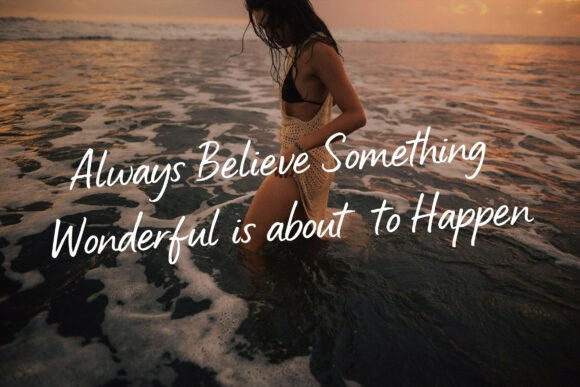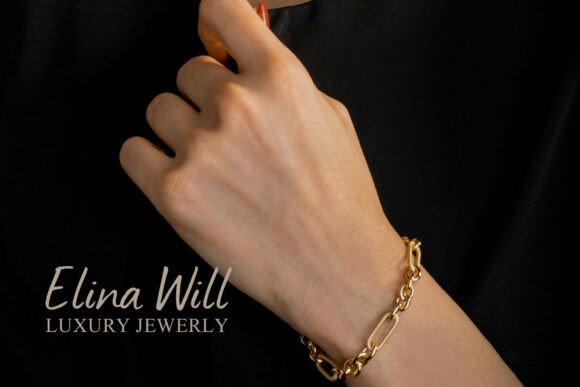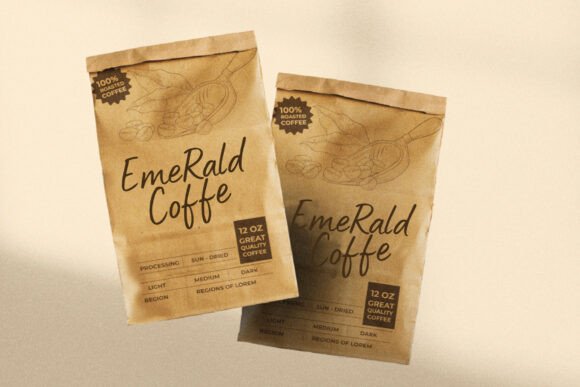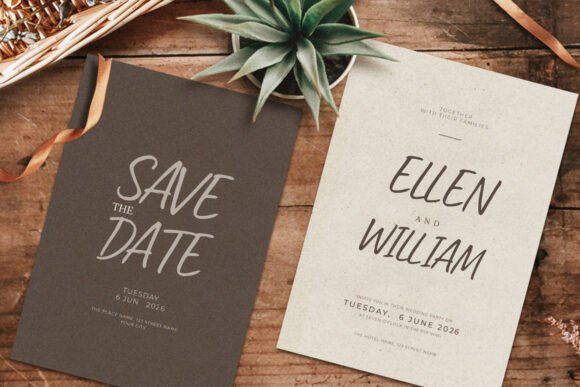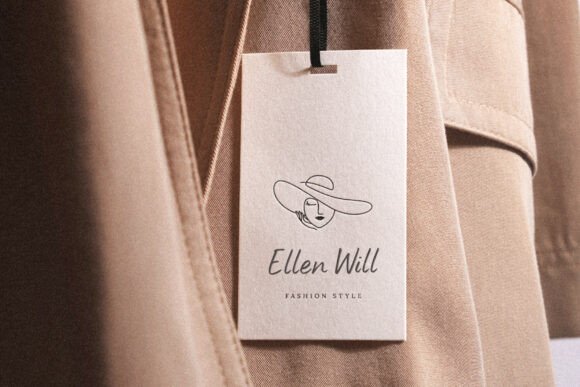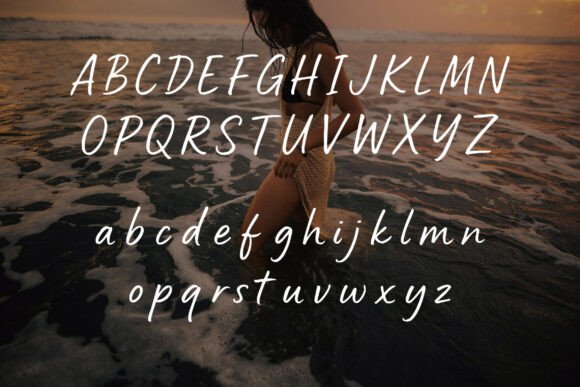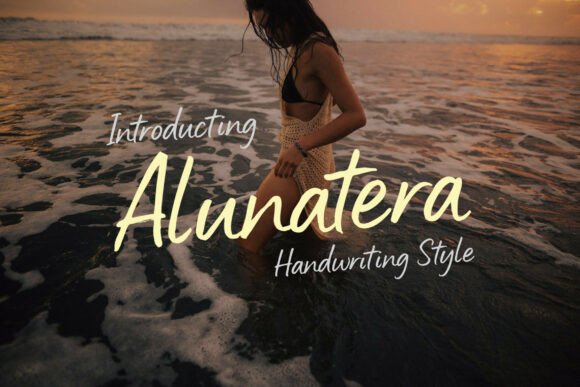
The Alunatera Font: A Designer’s New Best Friend
I still remember the last time I was working on a wedding invitation project, and I just couldn’t find the right font to capture the elegance and warmth of the occasion. My client was specific about wanting something clean, yet personal, and I was on a tight deadline. That’s when I stumbled upon the Alunatera font. It was love at first sight! ✨ The smooth strokes and casual flow of this beautiful handwritten font instantly resonated with me, and I knew I had found the perfect fit for my project.
- ✅ Clean and elegant design: Alunatera’s minimalist touch makes it perfect for a wide range of design projects, from branding to wedding invitations.
- ✅ Smooth strokes and casual flow: The font’s natural handwriting feel adds a personal touch to any design.
- ✅ Versatile: Alunatera works beautifully for both digital and print projects.
- ✅ Easy to read: The font’s clarity makes it perfect for body text and captions.
While Alunatera is an amazing font, there are a few things to keep in mind: 🤔
- ⚠️ Limited availability of stylistic alternates: While Alunatera has some great OpenType features, it could benefit from more alternates to really make it stand out.
- ⚠️ May not work well with very bold or bright color schemes: Alunatera’s elegance can get lost if paired with overly bold or bright colors.
The Story Behind Alunatera: Designer Inspiration
Alunatera was created with the goal of capturing the beauty of natural handwriting with a minimalist touch. The designer, inspired by the smooth flow of handwritten letters, aimed to create a font that feels both personal and modern. While the exact story behind Alunatera might be shrouded in mystery, its elegant design and versatility have made it a favorite among designers and crafters alike.
Q: Is Alunatera suitable for body text?
A: Yes, Alunatera is clear and easy to read, making it suitable for body text in many design projects.
Q: Does Alunatera support OpenType features?
A: Yes, Alunatera supports some OpenType features like ligatures and stylistic alternates, adding to its versatility.
Q: Is Alunatera available in different weights or styles?
A: While Alunatera might not have an extensive range of weights or styles, its single weight is versatile enough for many design applications.